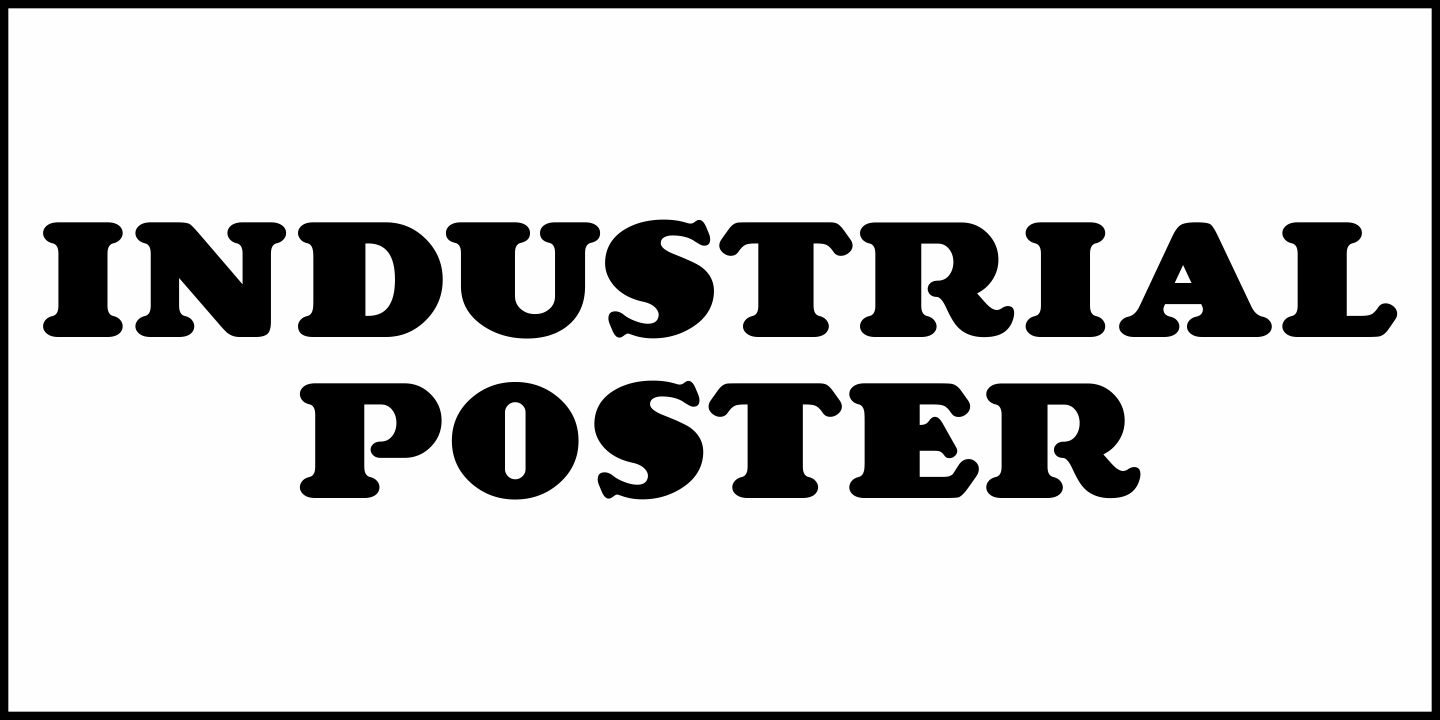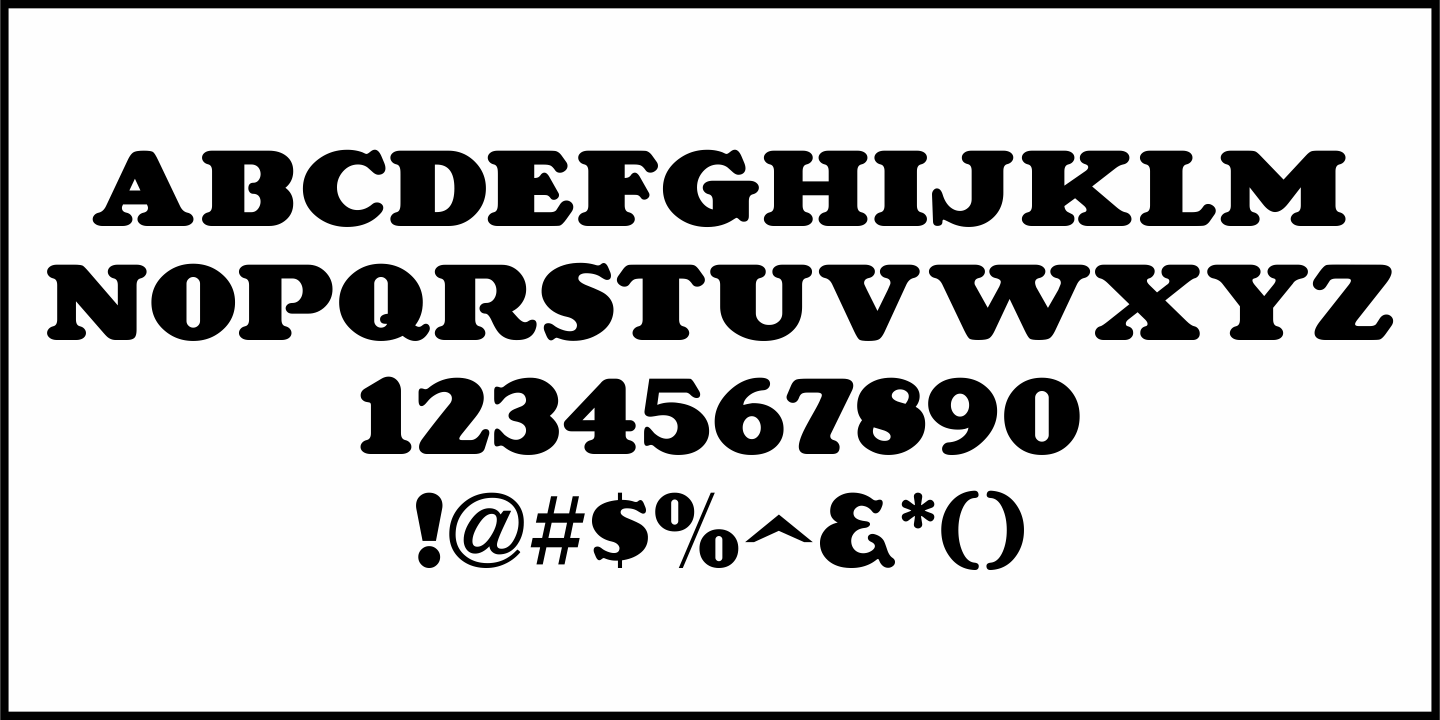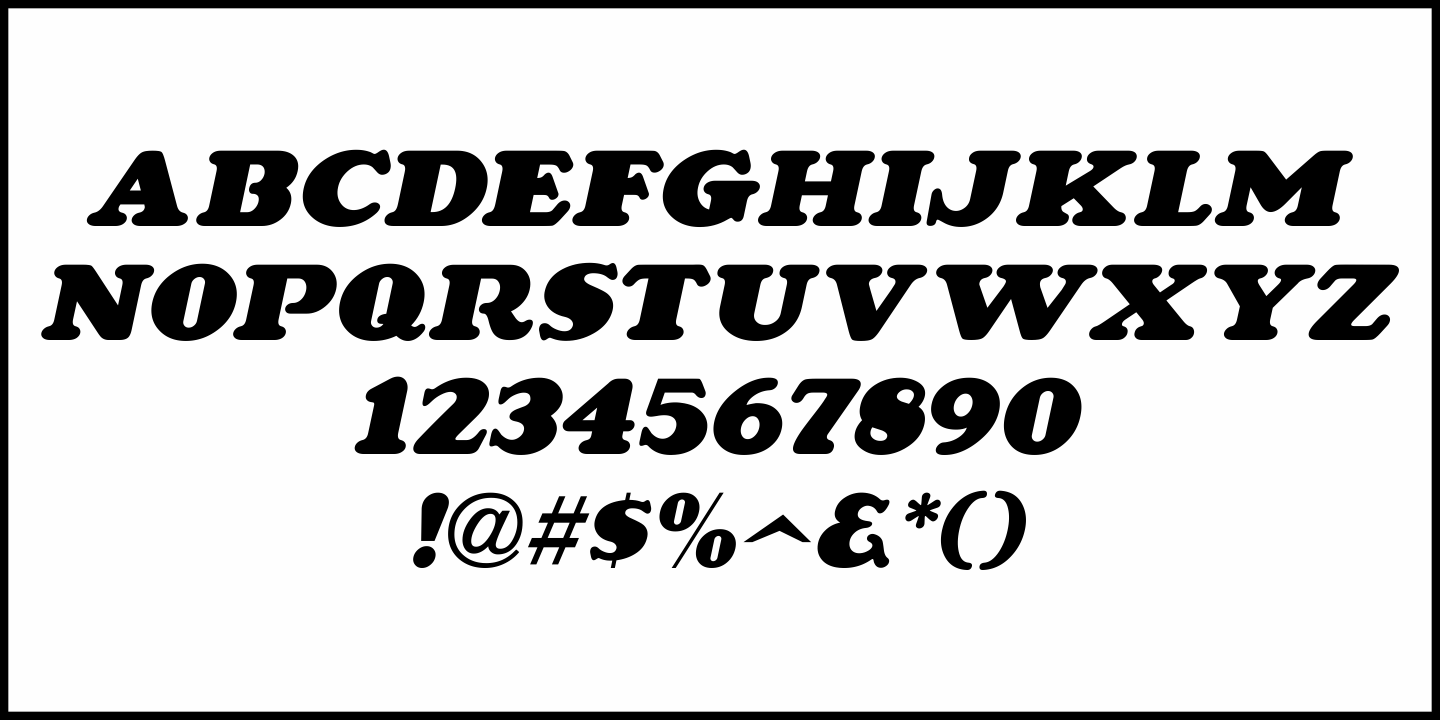
Industrial Poster
A 1917 informational poster for shipbuilders during World War I detailing the importance of their governmental work was hand lettered in a style closely resembling Cooper Black, yet retaining its own look and feel.
This inspired Industrial Poster JNL, which is available in both regular and oblique versions.
Industrial Poster JNL Regular by Jeff Levine Fonts